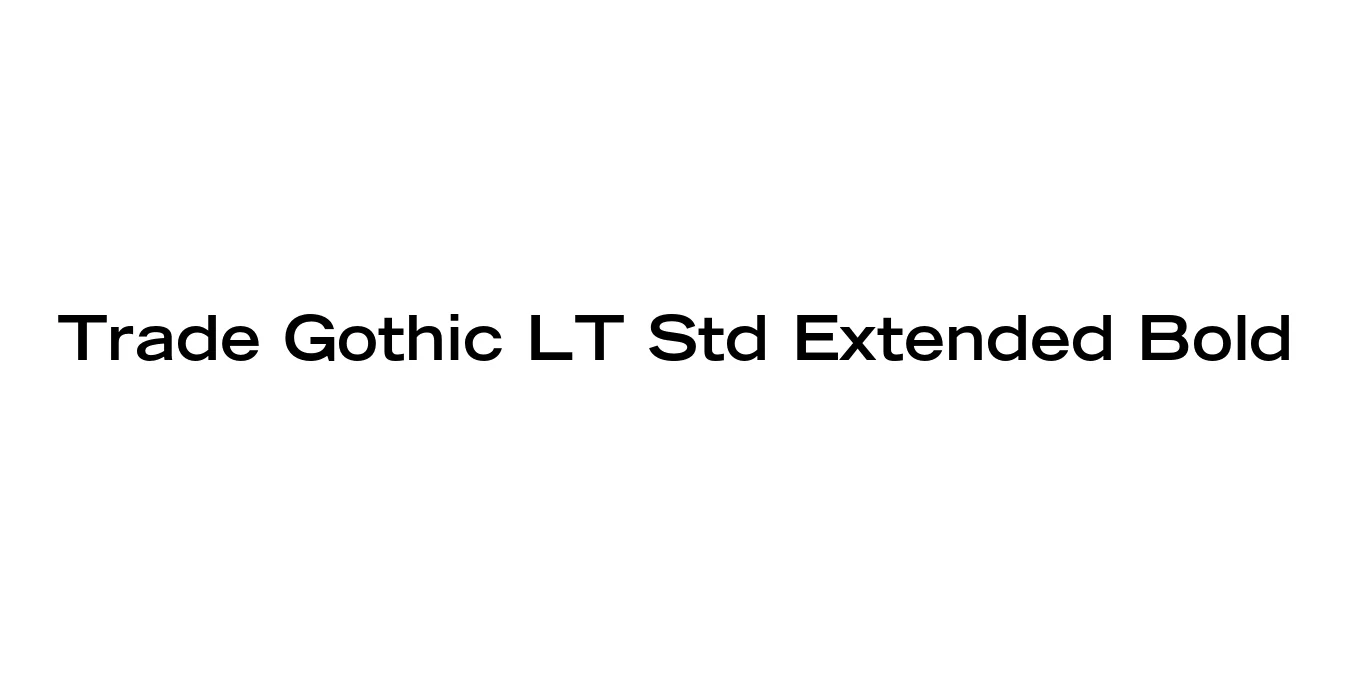
Trade Gothic LT Std Extended Bold
Designed by Jackson Burke
Trade Gothic LT Std Extended Bold is part of the iconic Trade Gothic family, originally designed by Jackson Burke in 1948 for the Linotype foundry. Unlike many other sans-serif families that were designed as a single, unified system, Trade Gothic was developed over many years, resulting in a more organic and less rigid structure. This "workhorse" quality has made it a favorite among designers who seek a typeface that feels industrious and versatile without being overly clinical like Helvetica or Univers.
The Extended Bold weight specifically offers a wide, robust presence that is highly effective for high-impact display work. Its generous horizontal proportions and heavy stroke weight provide excellent legibility and a commanding aesthetic, making it particularly suitable for architectural signage, editorial headlines, and corporate branding where a sense of stability and strength is required.
Trade Gothic LT Std Extended Bold Best Uses
Perfect for bold, attention-grabbing titles and newspaper headings.
Ideal for creating strong industrial or corporate visual identities.
Provides high-impact visibility for posters and large-scale promotional materials.
The extended width makes it highly legible for environmental graphics and wayfinding.